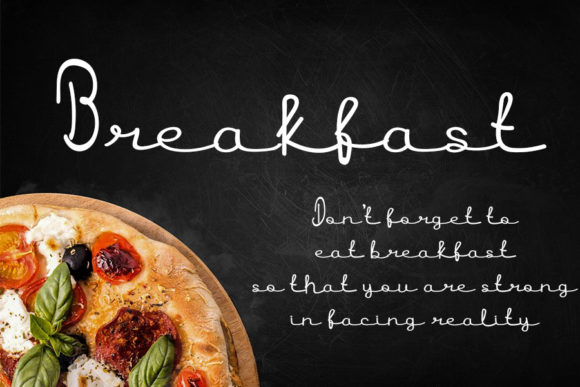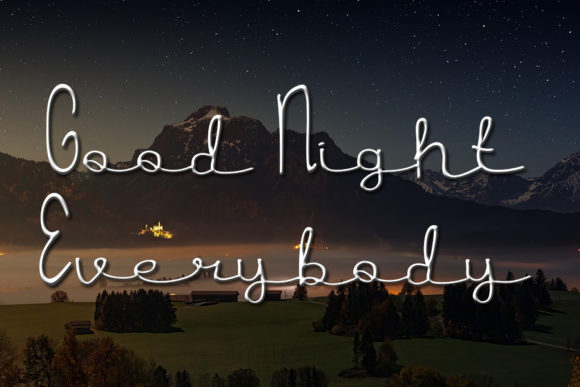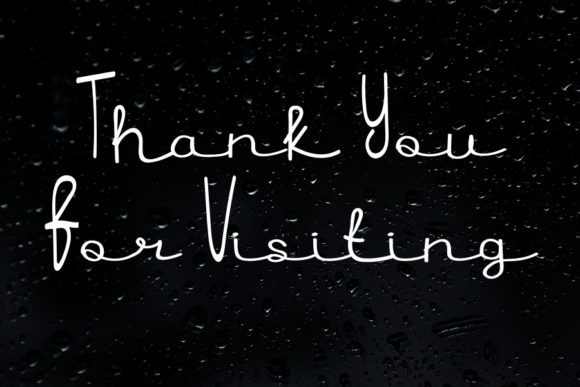
Introducing Beautiful Signature: The Ultimate Whimsical Script Font
Are you tired of using the same old fonts in your designs? Look no further! Beautiful Signature is a stunning script font that is sure to elevate your creations with its relaxed theme and lovely style. This font is an incredibly versatile asset that can be used for a wide range of projects, from wedding invitations to branding materials, and everything in between.
The Beauty of Beautiful Signature
Beautiful Signature is a whimsical script font that exudes elegance and sophistication. Its relaxed theme gives it a friendly and approachable feel, making it perfect for designs that require a personal touch. The font features beautiful swashes and flourishes that add a touch of luxury to any project. Whether you’re a designer, crafter, or DIY enthusiast, Beautiful Signature is sure to become a favorite in your font library.
Key Features of Beautiful Signature
- Whimsical Script Style: Beautiful Signature features a unique and playful script style that is sure to add a touch of personality to your designs.
- Relaxed Theme: The font’s relaxed theme makes it perfect for designs that require a friendly and approachable feel.
- Lovely Swashes and Flourishes: The font features beautiful swashes and flourishes that add a touch of luxury to any project.
- Highly Versatile: Beautiful Signature can be used for a wide range of projects, from wedding invitations to branding materials, and everything in between.
Uses for Beautiful Signature
Beautiful Signature is an incredibly versatile font that can be used for a wide range of projects. Here are just a few ideas to get you started:
- Wedding Invitations: Beautiful Signature is perfect for wedding invitations, with its elegant and sophisticated style.
- Branding Materials: The font’s relaxed theme and lovely style make it perfect for branding materials, such as logos and business cards.
- Stationery: Beautiful Signature is great for creating custom stationery, such as letterheads and notecards.
- DIY Projects: The font is also perfect for DIY enthusiasts, who can use it to create custom signs, banners, and other decorative items.
Tips for Using Beautiful Signature
Here are a few tips for using Beautiful Signature in your designs:
- Use it as a Headline Font: Beautiful Signature is perfect for use as a headline font, where its elegant and sophisticated style can really shine.
- Pair it with a Sans Serif Font: For body text, pair Beautiful Signature with a sans serif font to create a nice contrast.
- Experiment with Swashes and Flourishes: Don’t be afraid to experiment with the font’s swashes and flourishes to add a touch of personality to your designs.
| Author | Slenting Art |
Beautiful Signature is a stunning script font that is sure to elevate your designs with its relaxed theme and lovely style. Its highly versatile nature makes it perfect for a wide range of projects, from wedding invitations to branding materials, and everything in between. With its beautiful swashes and flourishes, Beautiful Signature is an incredibly asset to your font library. So why wait? Download Beautiful Signature today and start creating beautiful designs!